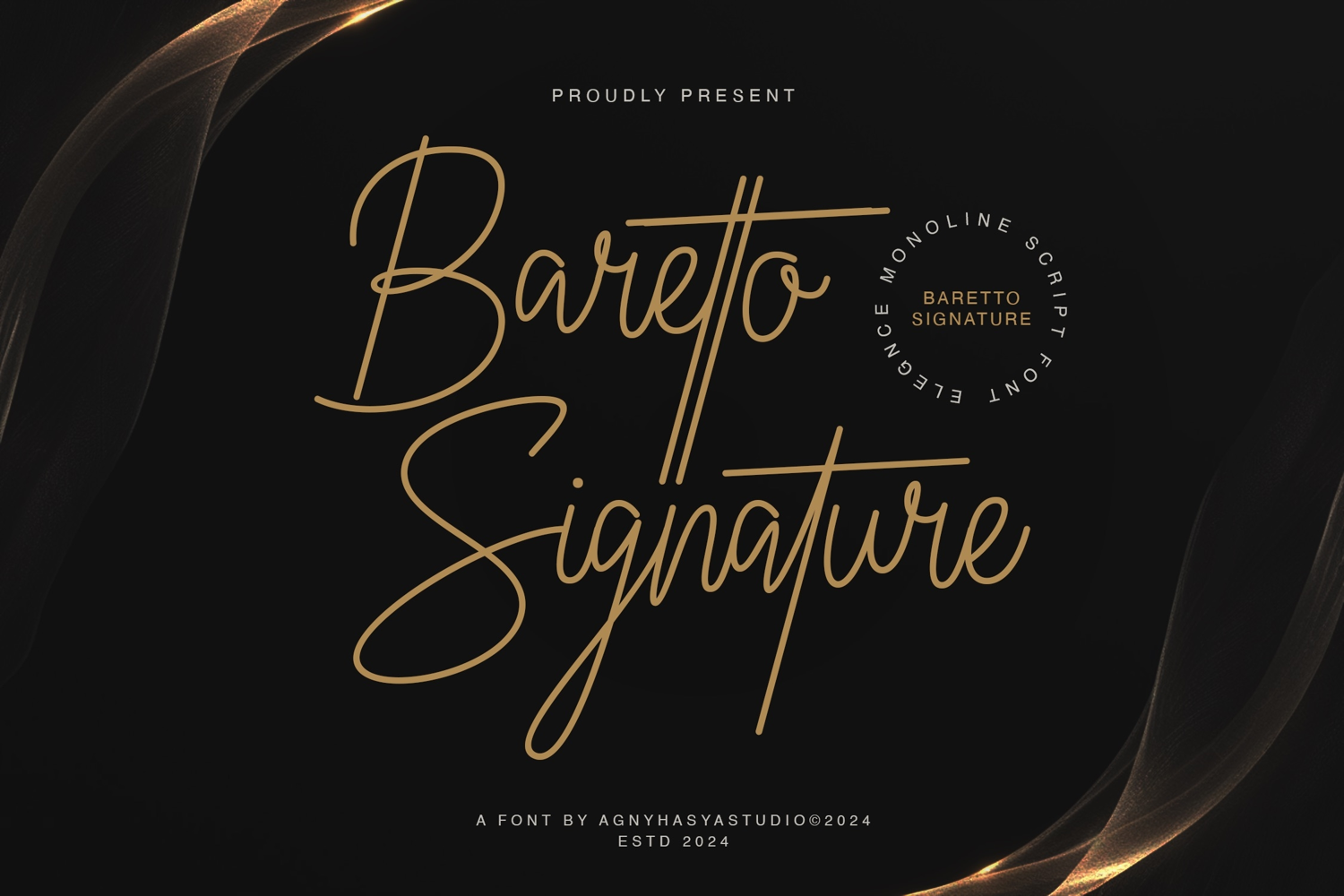
Baretto - Signature Font
Introducing Baretto Signature is a monoline-style script font with natural and elegant movement.
Baretto Signature is versatile and can be used for any casual, formal, or business project design needs.
including logos, branding, art quotes, wedding designs, social media posts, advertising, product packaging,
product designs, labels, photography, watermarks, invitations, beauty and fashion designs, stationery,
and any projects that require a handwritten touch.